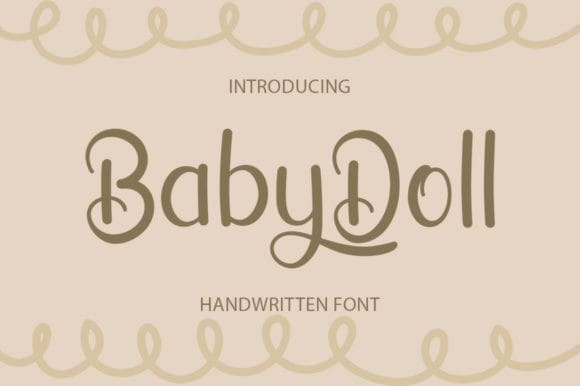
Baby Doll Font
Baby Doll Font is a smart-looking handwritten font. It looks ravishing on invitations, thank you cards, quotes, greeting cards, logos, business cards, and every other design that needs a customized touch.